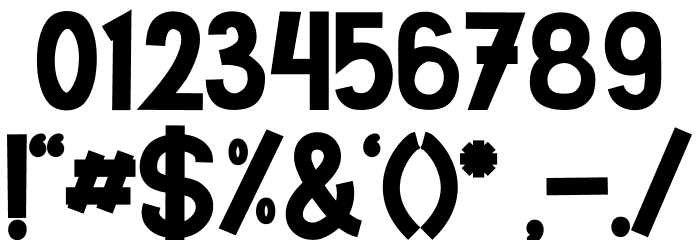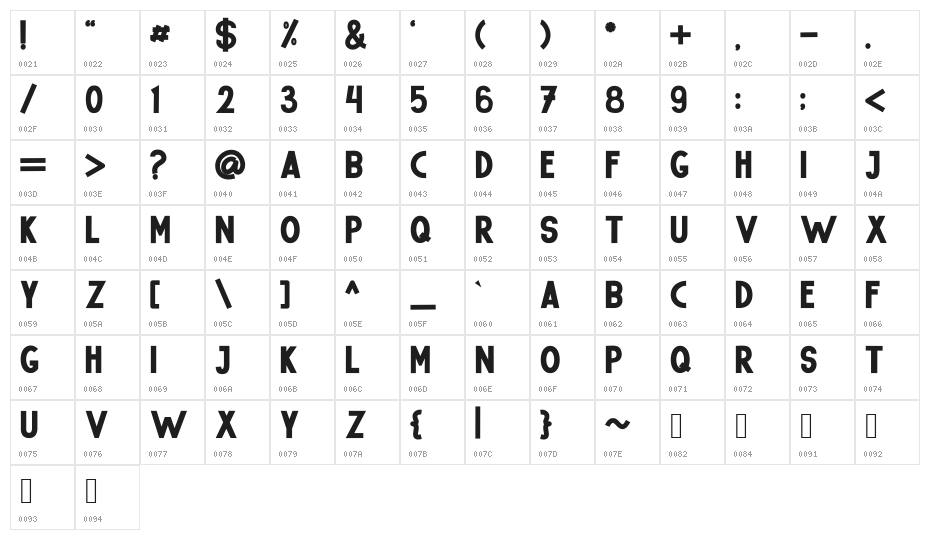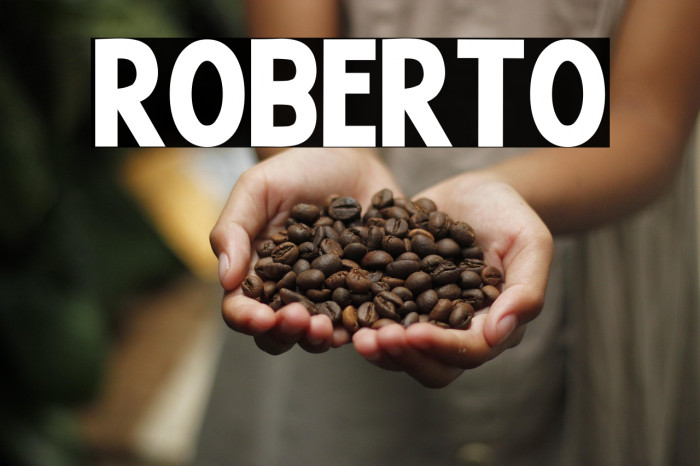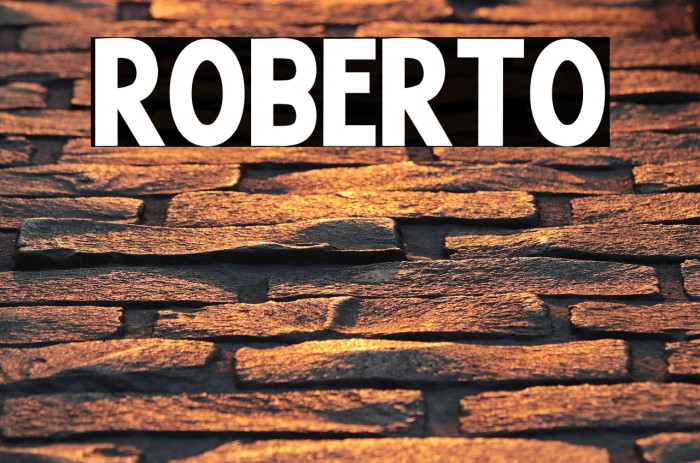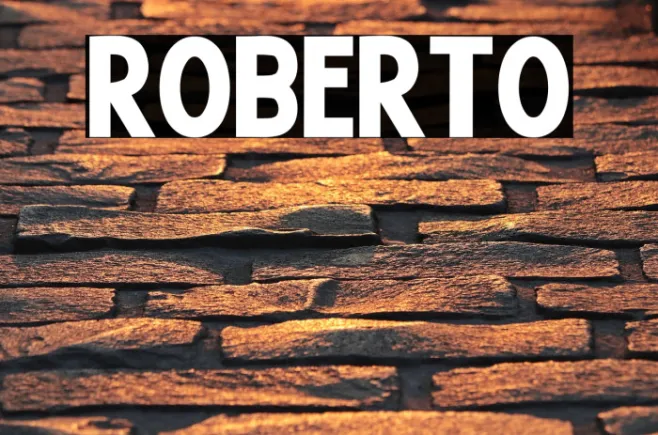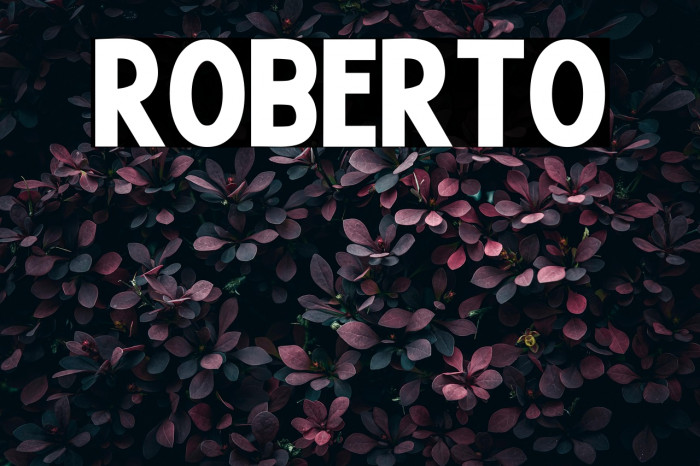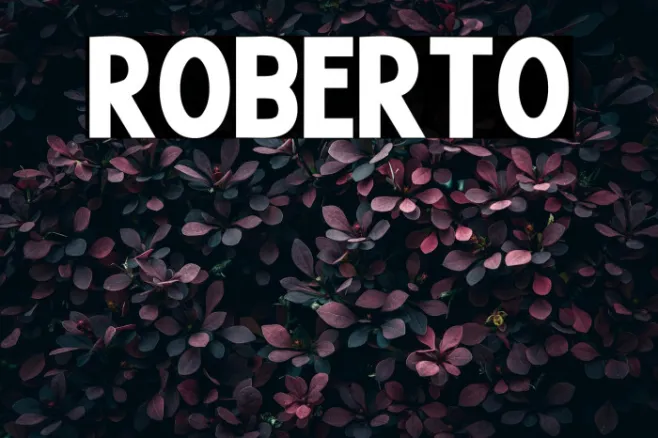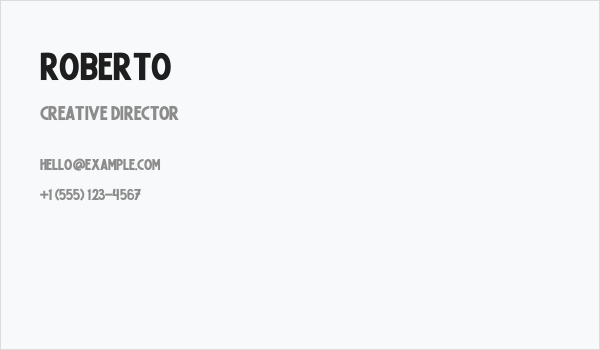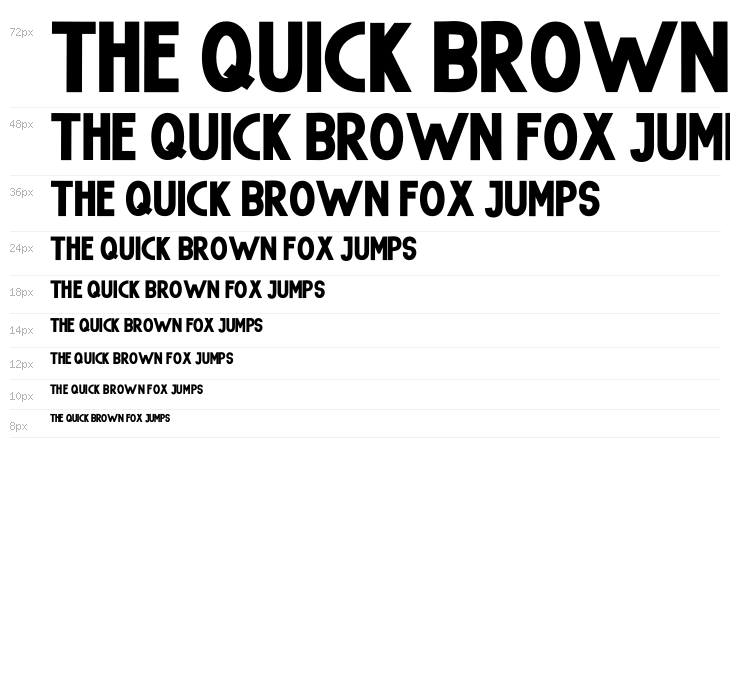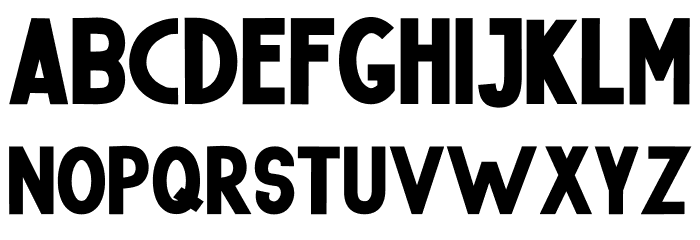
Roberto Font
Roberto Description
This bold and impactful font features strong geometric shapes with a modern flair. The uppercase letters are characterized by their thick strokes and uniform width, creating a sense of stability and confidence. The numbers and special characters maintain this boldness, ensuring consistency across all elements. The font's design is straightforward yet striking, making it suitable for attention-grabbing headlines or branding materials. Its clean lines and lack of serifs give it a contemporary feel, while the bold weight adds a touch of assertiveness.
| Proposed Projects | Ideal for branding, posters, headlines, and any project requiring a strong visual impact. |